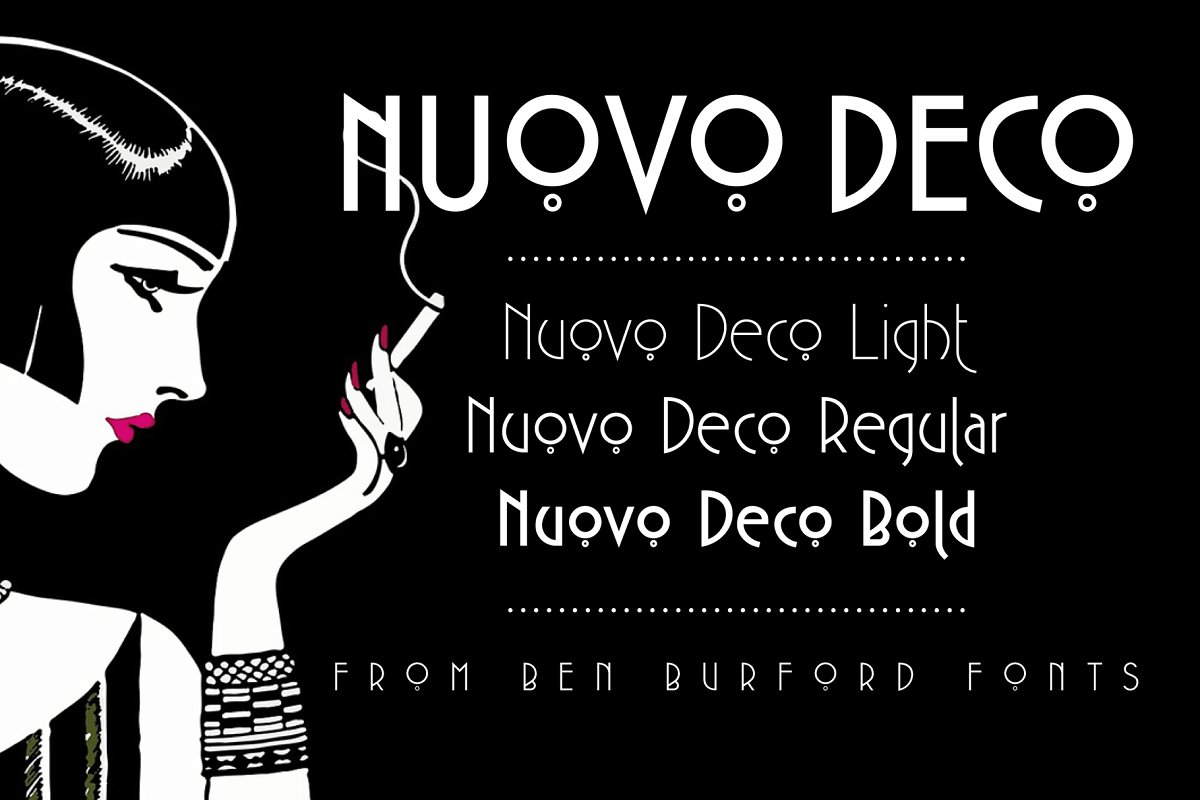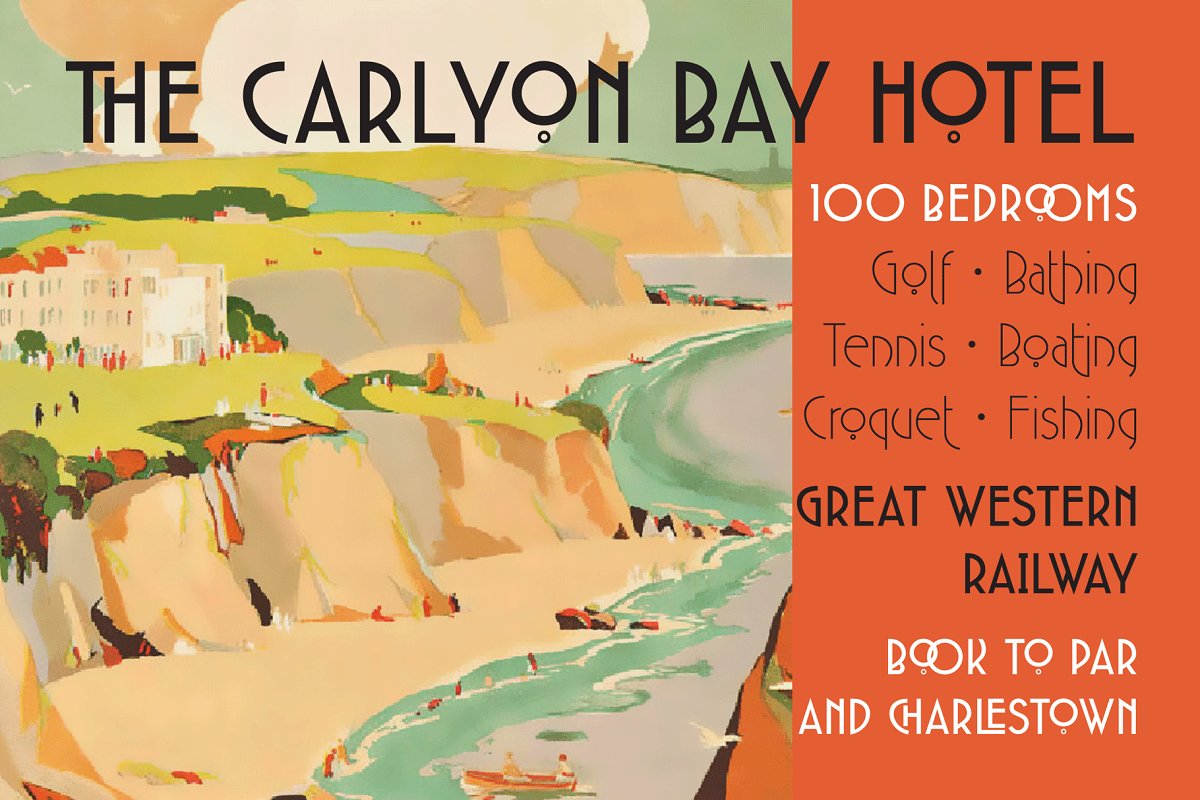
About the Nuovo Deco Font
Following from the continued popularity of the original MB Deco, Here is its new and improved big brother, Nuovo Deco comes in three weights, Light, Regular and Bold, A full character set of Caps and lower case letters, alternate characters plus, some very nice Ligatures to give some added art deco style and a much wider scope,